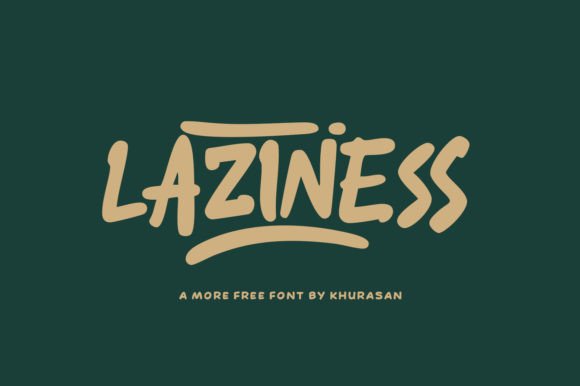
Dive into the world of Laziness: a captivating script font family that breathes life into your digital creations. Crafted with the utmost care and precision by the renowned Khurasan, this font is a symphony of style and versatility. Its meticulously designed curves and elegant strokes evoke a sense of timeless beauty, while its contemporary flair adds a touch of playful sophistication.
With Laziness, your designs will radiate an air of distinction. Its bold presence commands attention on posters and logos, while its delicate charm captivates readers in magazines and book covers. Whether you're creating eye-catching banners or simply adding a touch of personality to your personal projects, Laziness is your trusted companion, transforming your words into works of art.
Unleash your creativity and let Laziness ignite your imagination. Its boundless versatility effortlessly adapts to an endless array of projects, seamlessly harmonizing with your unique vision. From sprawling murals to intimate invitations, Laziness is your muse, guiding you towards remarkable design achievements.
Experience the transformative power of Laziness and witness how it elevates your projects to new heights. Embrace the beauty of its script, the allure of its curves, and the elegance of its strokes. Discover the endless possibilities that await you with Laziness, the font that captivates and inspires, stroke by stroke, design by design. Delve into the realm of Laziness and let your creativity soar!